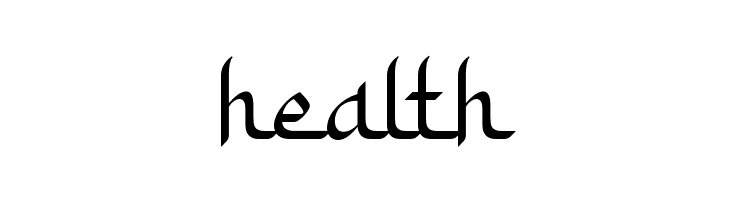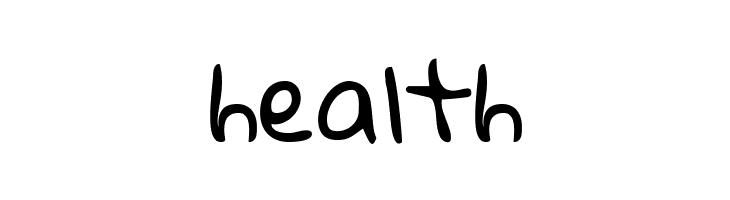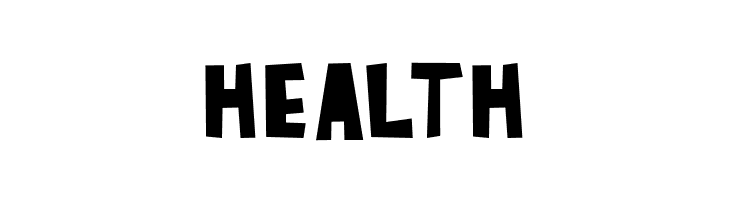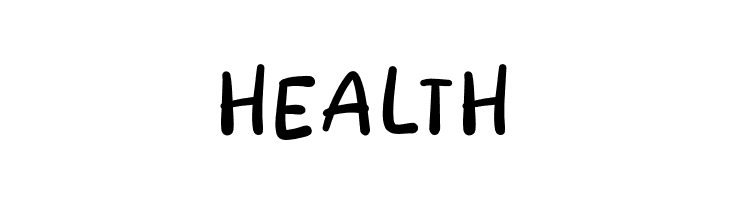
A cursive-inspired font with elegant, flowing strokes and calligraphic flair.
A playful, handwritten font with flowing, connected letterforms.
A flowing, cursive font with elegant, sweeping strokes and a modern yet timeless appeal.
An elegant script font with calligraphic influences and graceful curves.
A playful, casual handwritten font with a fun and spontaneous style.
An elegant script font with flowing curves and decorative swirls.
A lively handwritten font with fluid strokes and a modern, approachable style.
A playful, bold, and hand-drawn font with a whimsical and informal style.
A graceful script font with fluid, interconnected strokes and elegant curves.
A playful, handwritten font with rounded, consistent strokes and a casual feel.